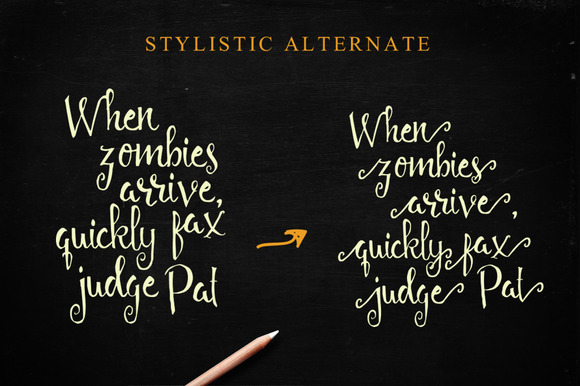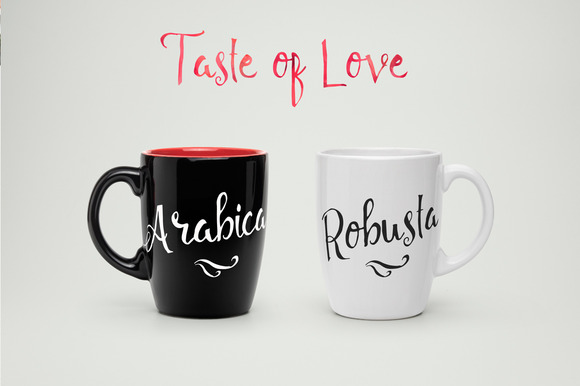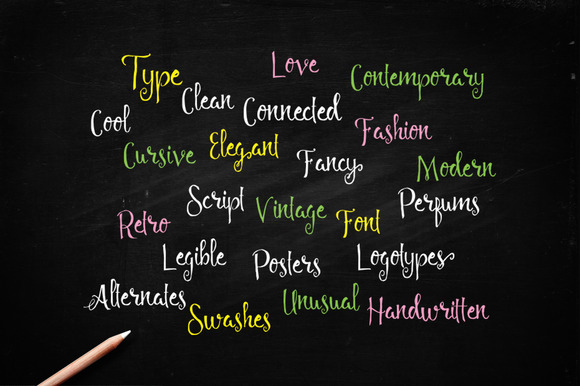
HomeScript FontsAngelia Script Font Script Fonts Angelia Script Font FacebookXPinterestWhatsApp Angelia Script Font Poster 2 Angelia Script Font Poster 3 Angelia Script Font Poster 4 Angelia Script Font Poster 5 About Angelia Script Font Angelia Script is a beautiful handmade script with a natural look. DOWNLOAD NOW People also explored Wedding Celebrities Font Hipotesis Font NotaBene Hello Creative Font Pahitna Font Noxabold Font Sabana Font Rivea Violet Simple 255 0 TagsAngelia Script Font Previous articleBrightside FontNext articleAllessa Script Font LEAVE A REPLY Cancel reply Comment: Please enter your comment! Name:* Please enter your name here Email:* You have entered an incorrect email address! Please enter your email address here Website: Save my name, email, and website in this browser for the next time I comment. Personal Use Free Ginóra Personal Use Free Read more about this font Street Cred Personal Use Free Read more about this font Mowgli Personal Use Free Read more about this font Nuku Nuku Personal Use Free Read more about this font BLOG Top 10 Handwritten Fonts That Elevate Your Designs Top 10 Handwritten Fonts That Will Elevate Your Designs Handwritten fonts bring a warm, personal touch to every creative project. Whether you're designing logos, invitations,... Elegant Wedding Invitation Fonts – Handwritten & Script Fonts Modern Sans-Serif Fonts That Brands Love in 2025 How to Cut Any Font on Cricut: Convert a Font to SVG (Free)